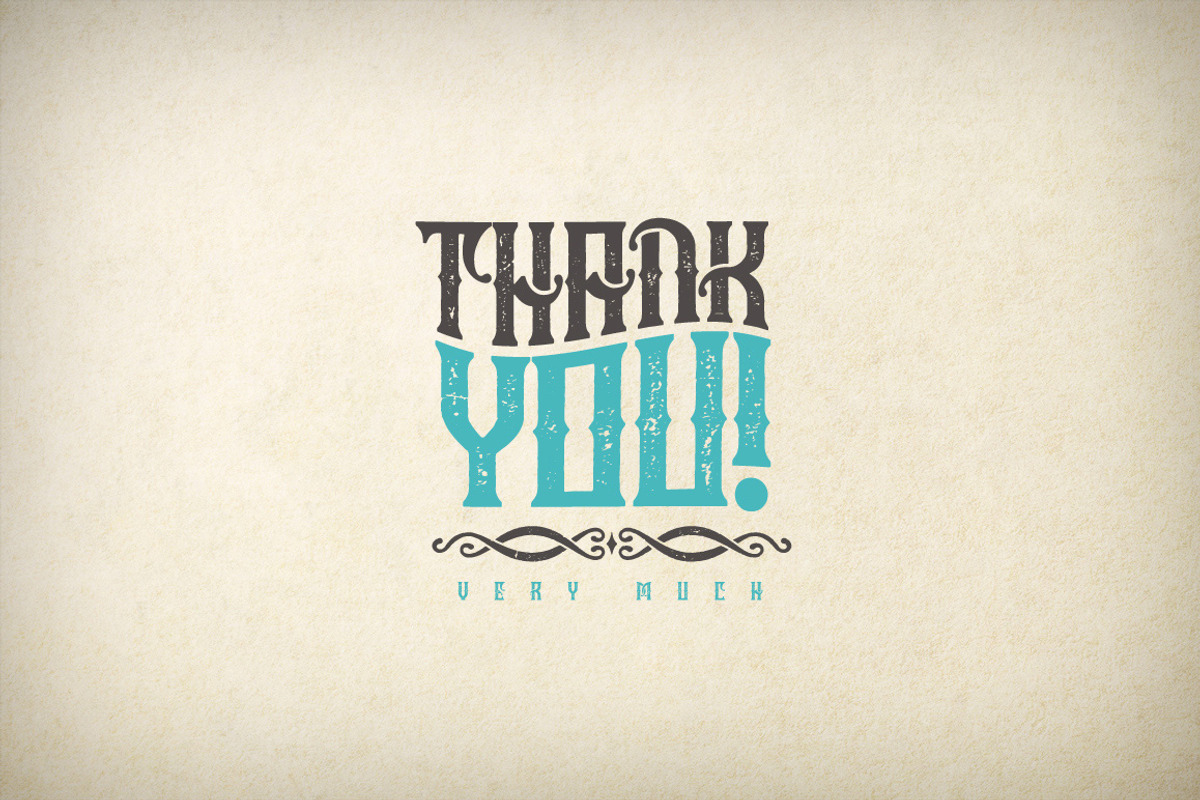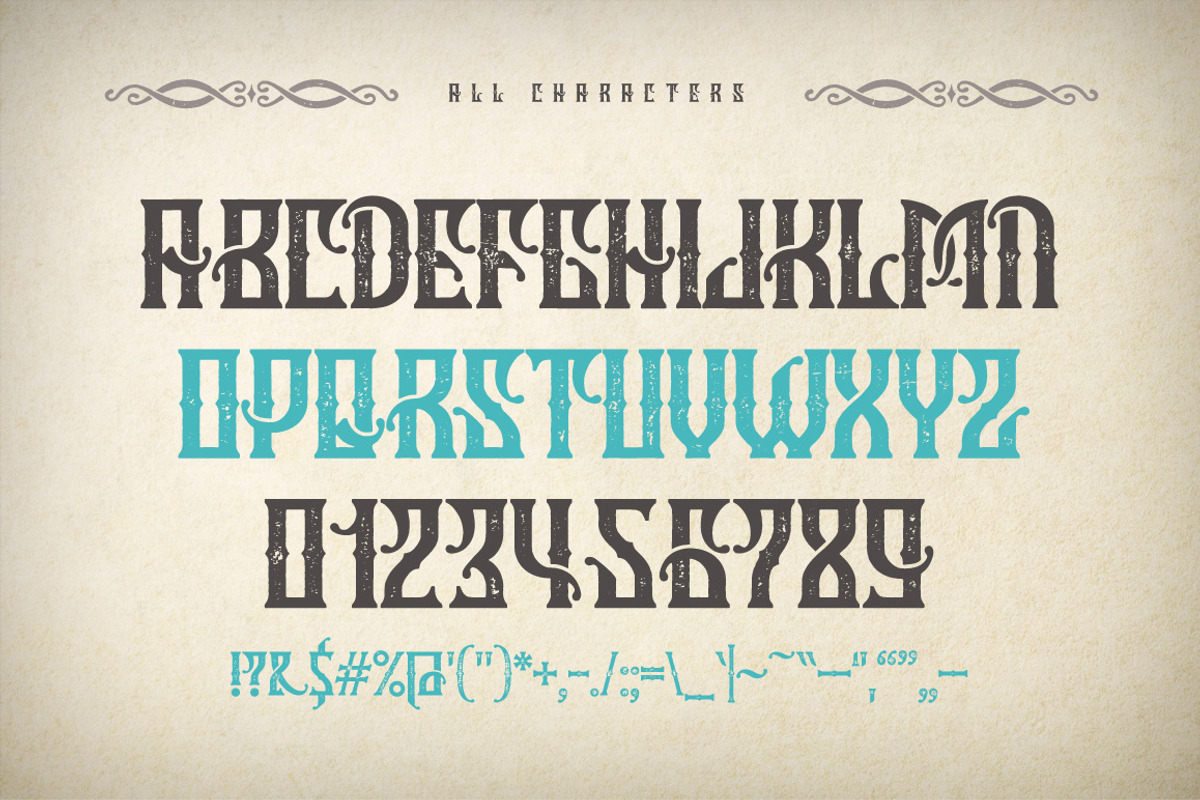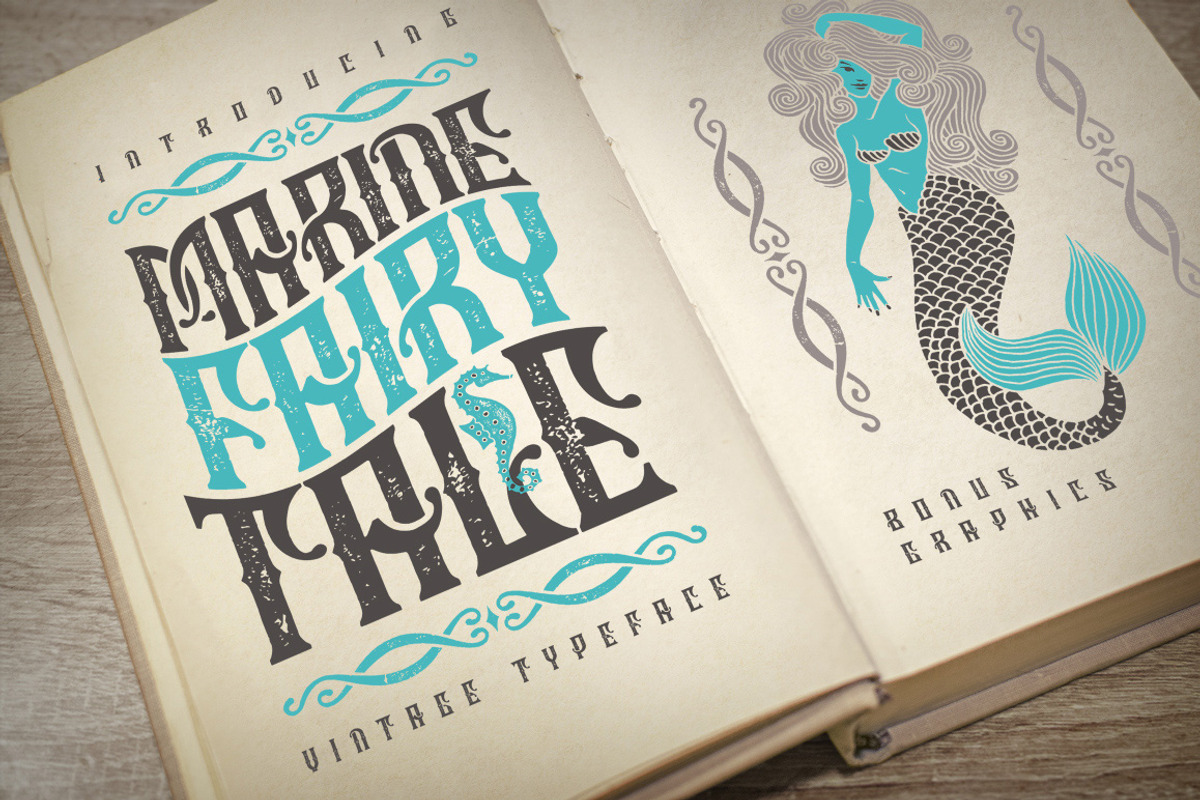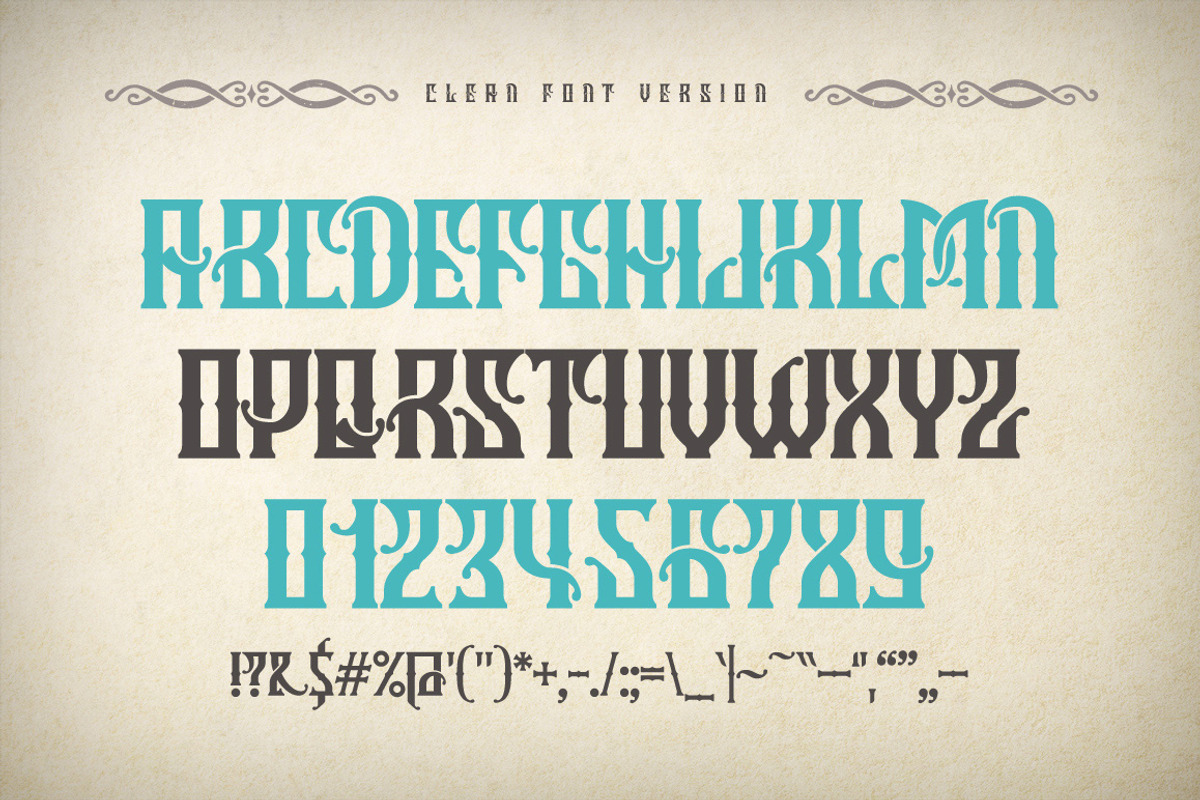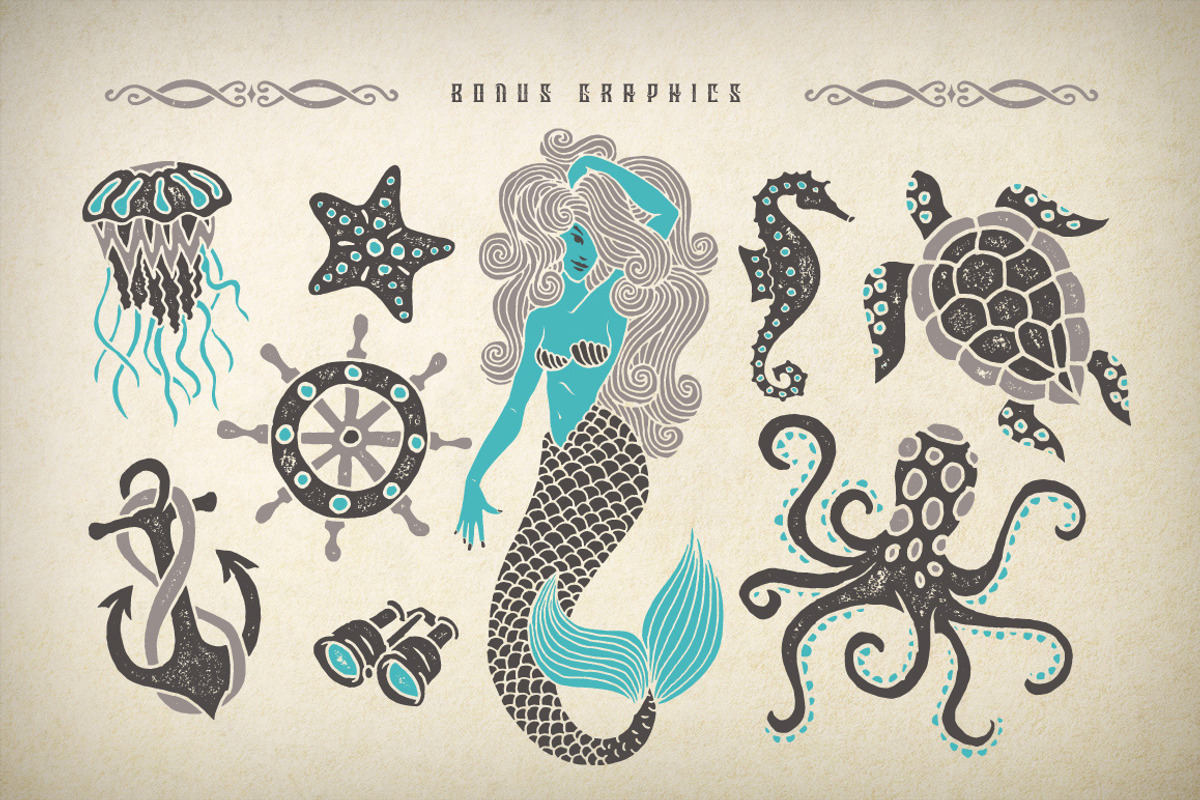
Marine fairytale typeface
Marine fairytale typeface by Gleb Guralnyk is a font selected for branding, posters, packaging, typography.
- Also the clean version of font is included.
Note: the font contains only latin letters (all the characters you can see on second and fourth screenshot) Show More
Marine fairytale typeface by Gleb Guralnyk fits naturally into Branding, posters, packaging, typography.